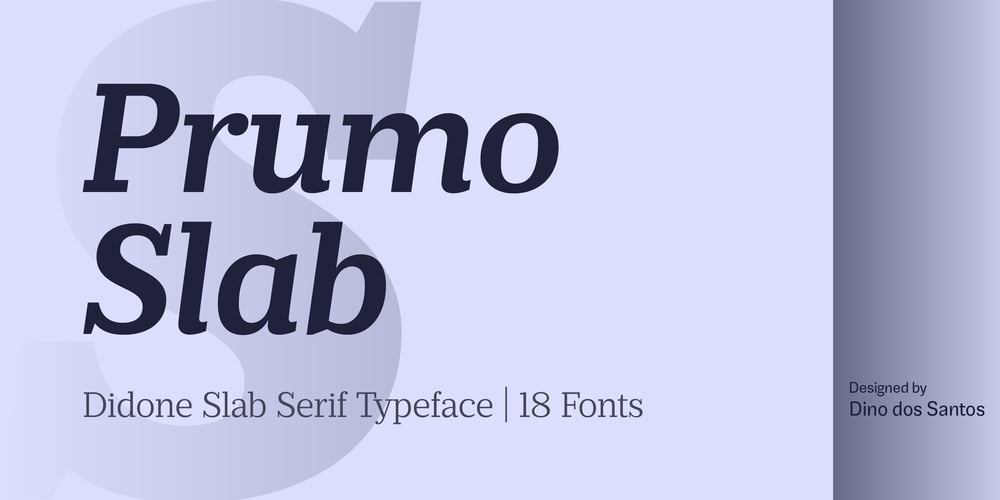
Prumo Slab
Prumo Slab font
Prumo Slab Font Family was designed by Dino dos Santos and published by Monotype. Prumo Slab contains 18 styles and family package options. Prumo is a new type system, based on a unique skeleton that flows, like a pendulum, from high contrast to low contrast. It’s a sort of typographic journey, from the 18th century typefaces to the 19th century slab serif typefaces, gathering information from the Scotch Roman fonts on its journey. Prumo is a type family with classic proportions that takes advantage of the recent type production technology while looking carefully at the most important historical references.